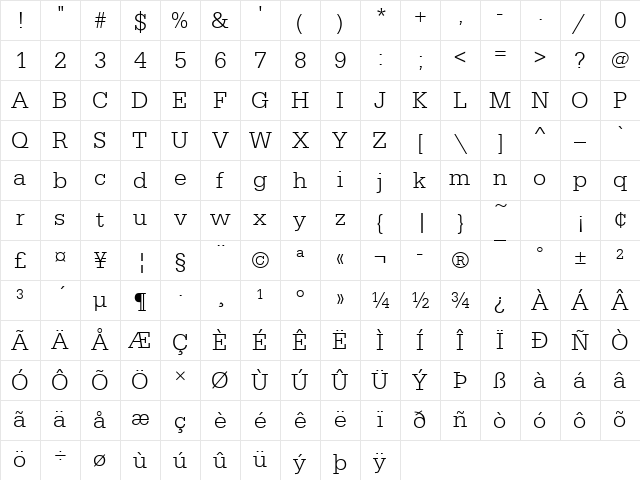
SerifaTLig carries the refined structure of traditional serif typography, with bracketed terminals and considered proportions that communicate credibility and craft.
Pro Tip: Use SerifaTLig for editorial body copy and considered headline work. Pair with a neutral sans for UI elements or captions to create a classic hierarchy.